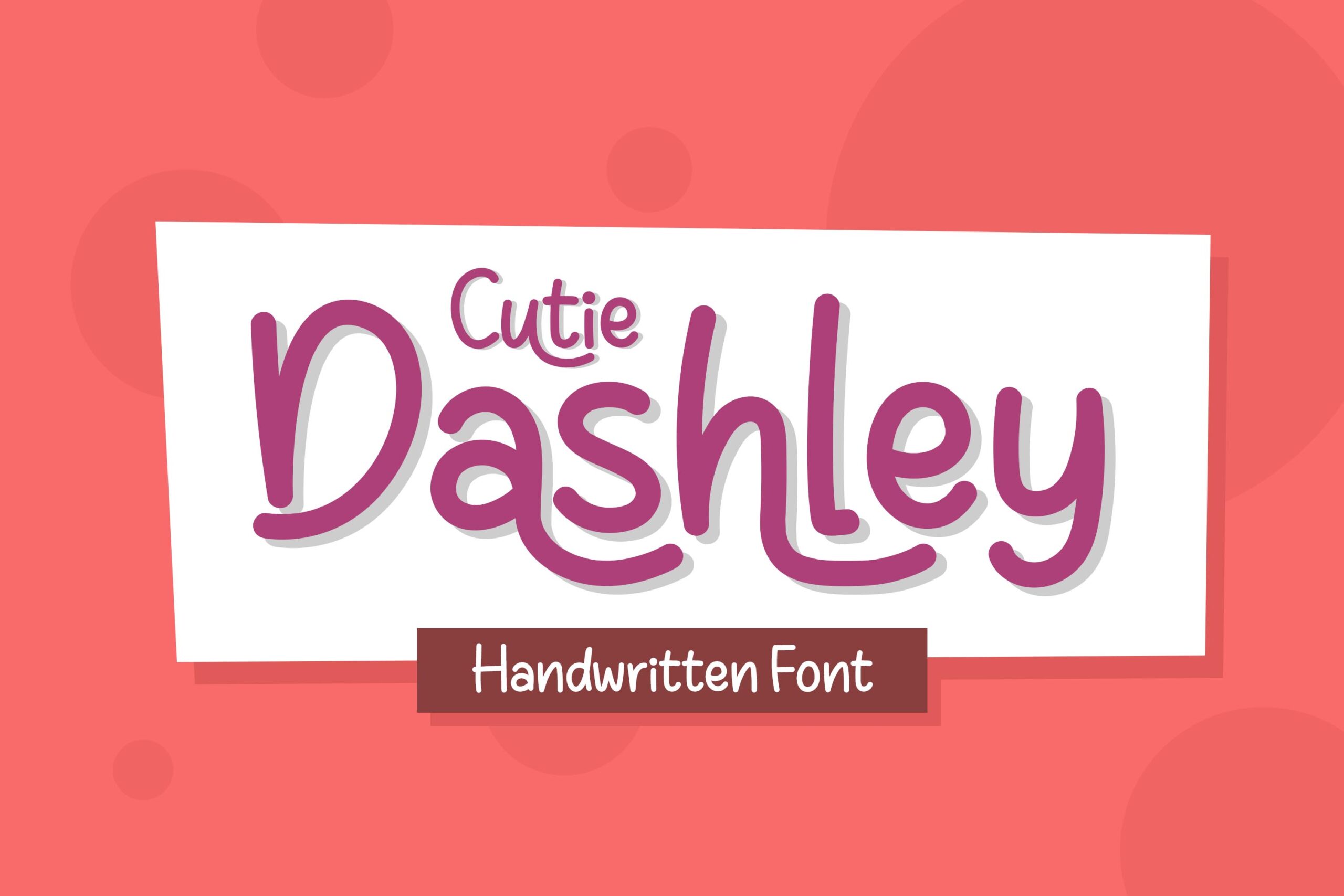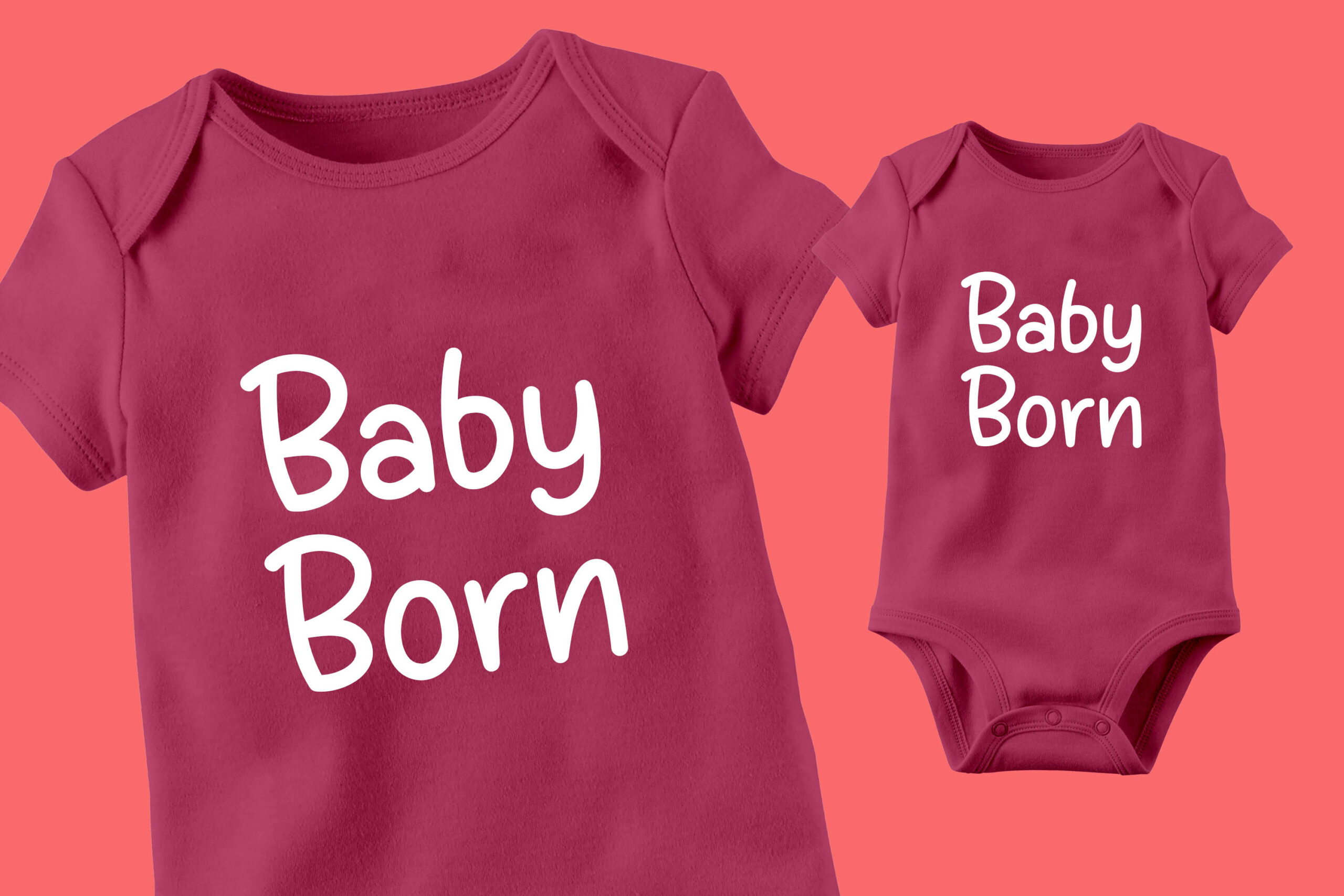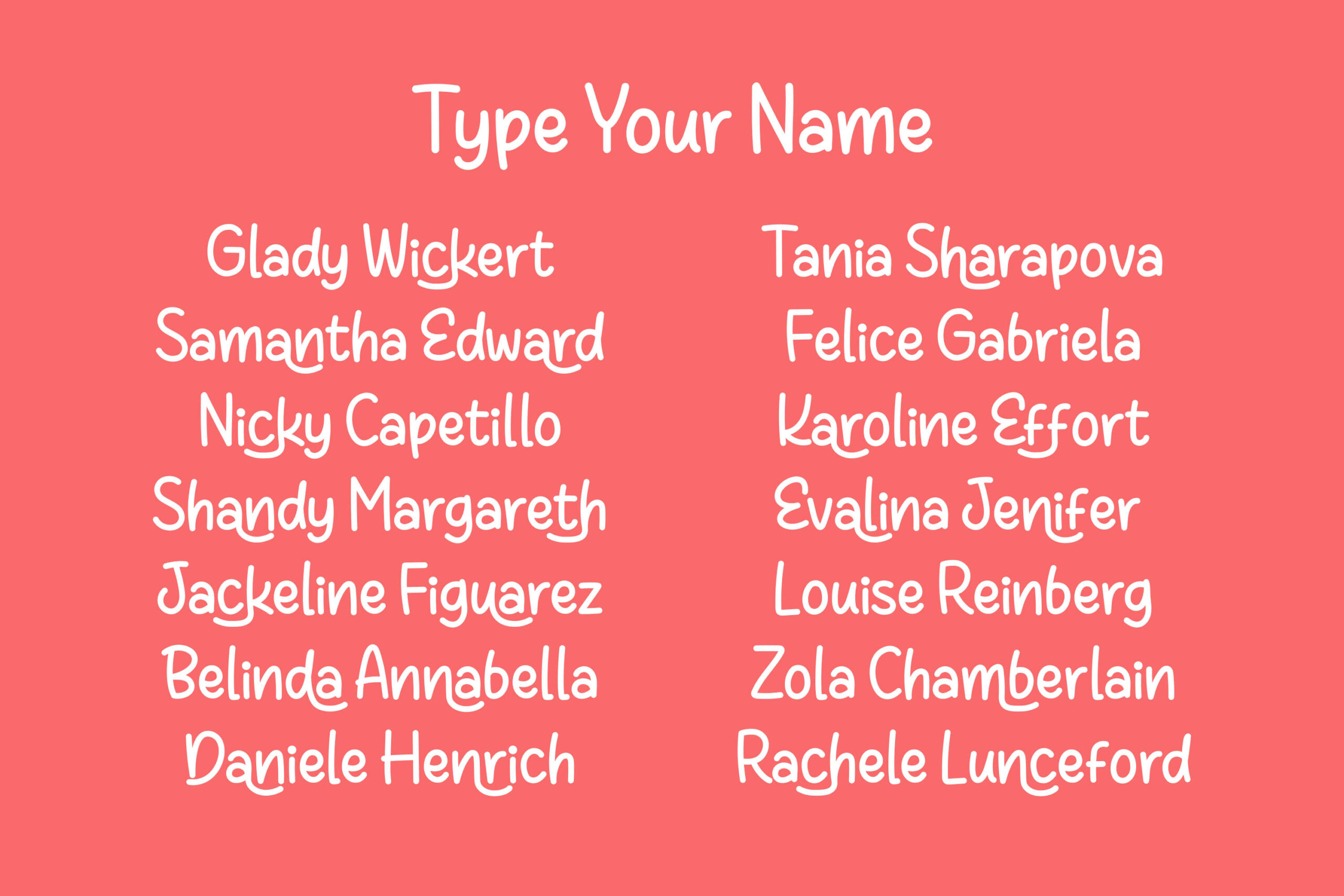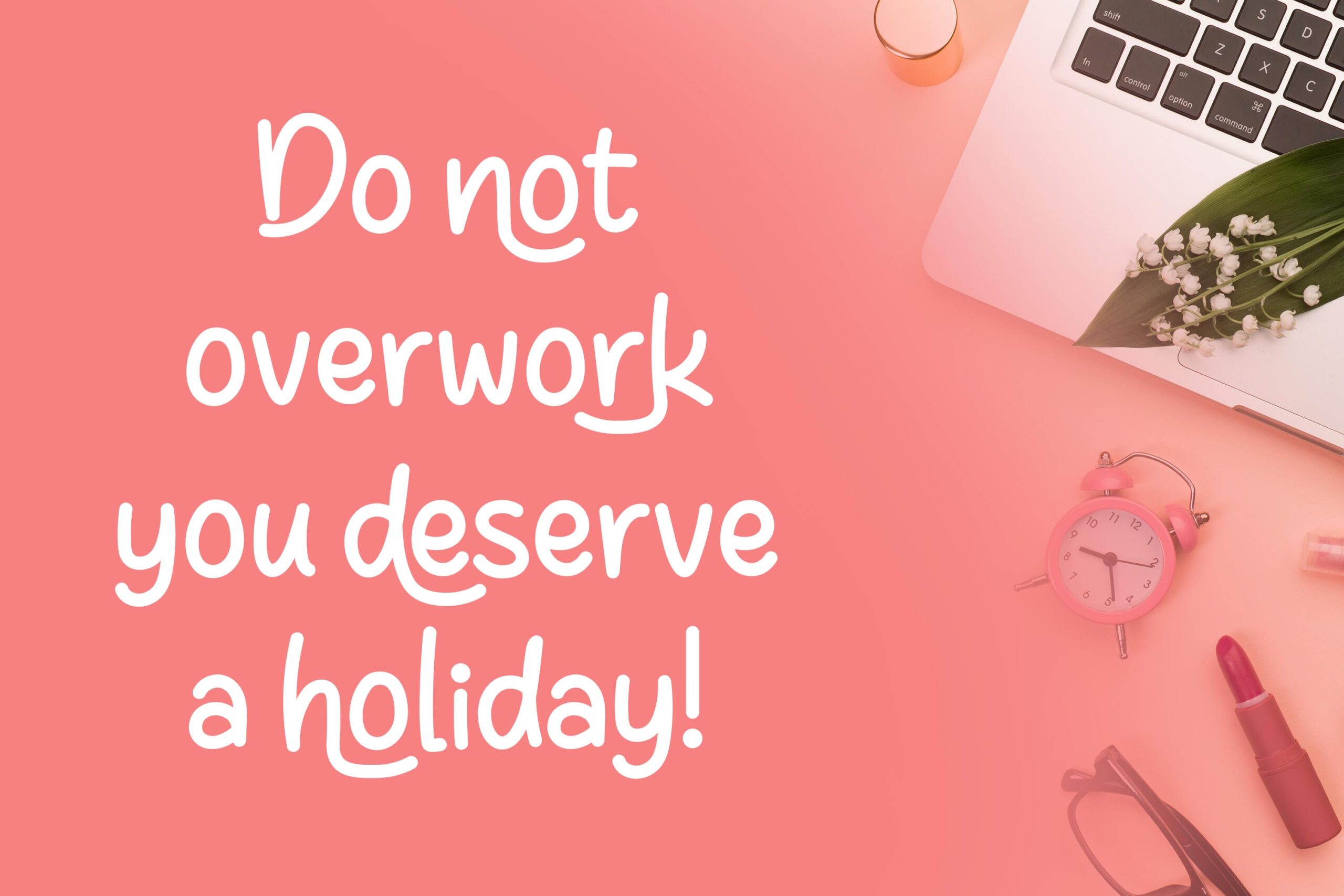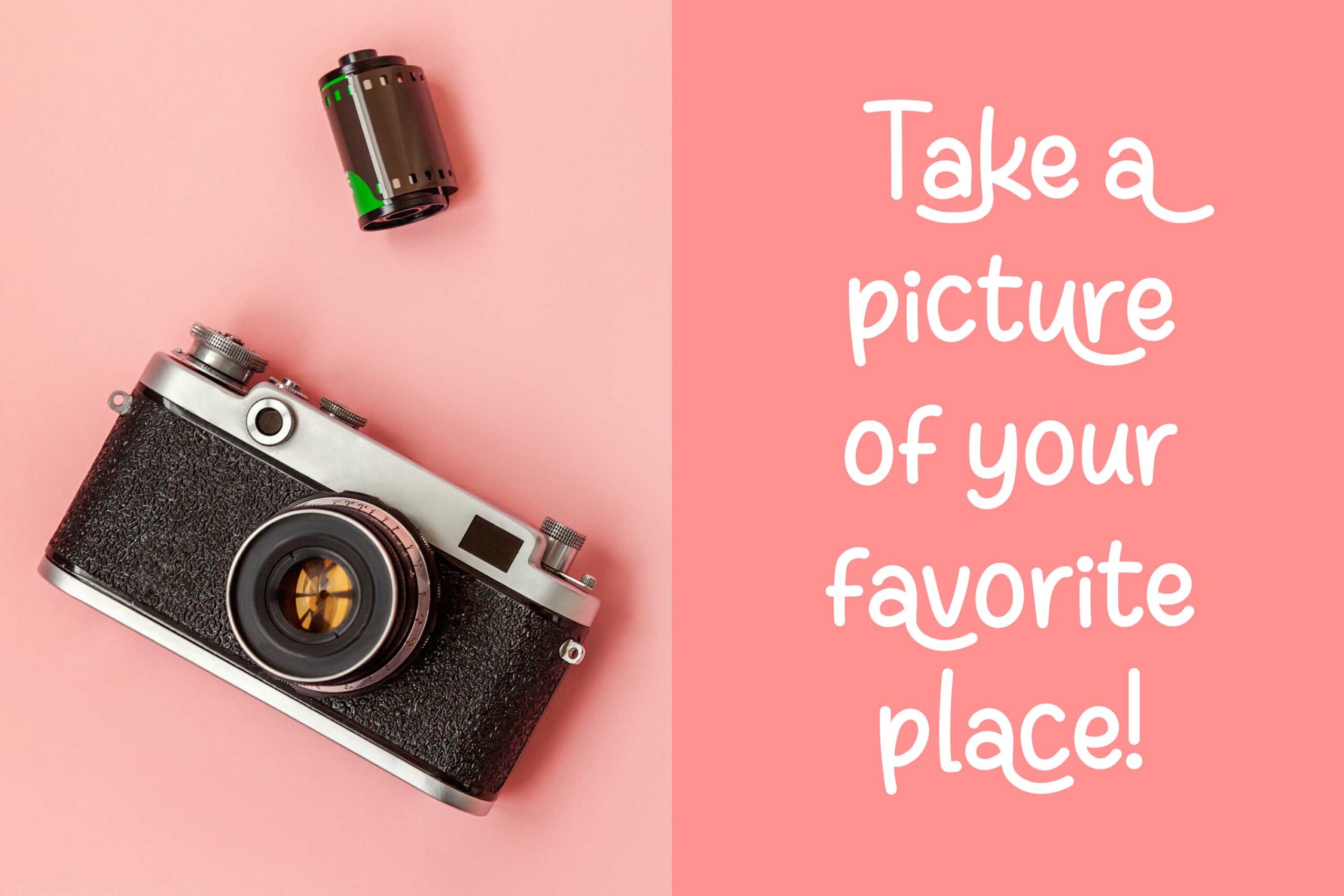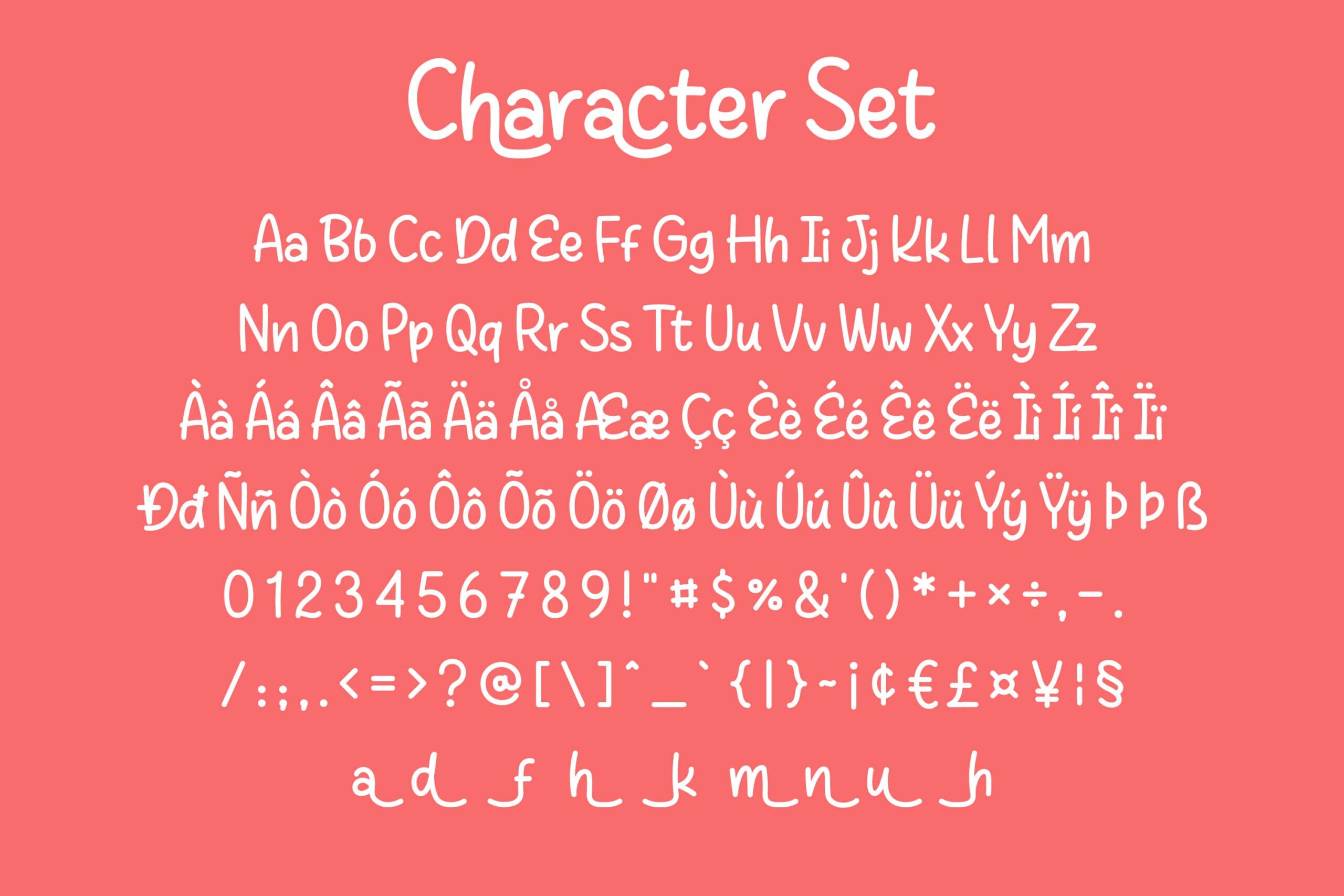
Cutie Dashley
Introducing Cutie Dashley, the font that adds a sprinkle of whimsy and a dash of charm to any project! With its playful curves and delightful strokes, Cutie Dashley exudes a sense of warmth and friendliness that instantly captures attention.
Each letter is carefully crafted to embody a sense of innocence and joy, making it perfect for conveying heartfelt messages, creating adorable invitations, or adding a touch of sweetness to branding materials. Its versatility shines through whether you’re designing for a children’s book, crafting social media graphics, or adding a unique flair to your projects.
FONT FEATURES
- Kerning
- Stylistic Alternates
- 64 Language Support
- Additional Accents